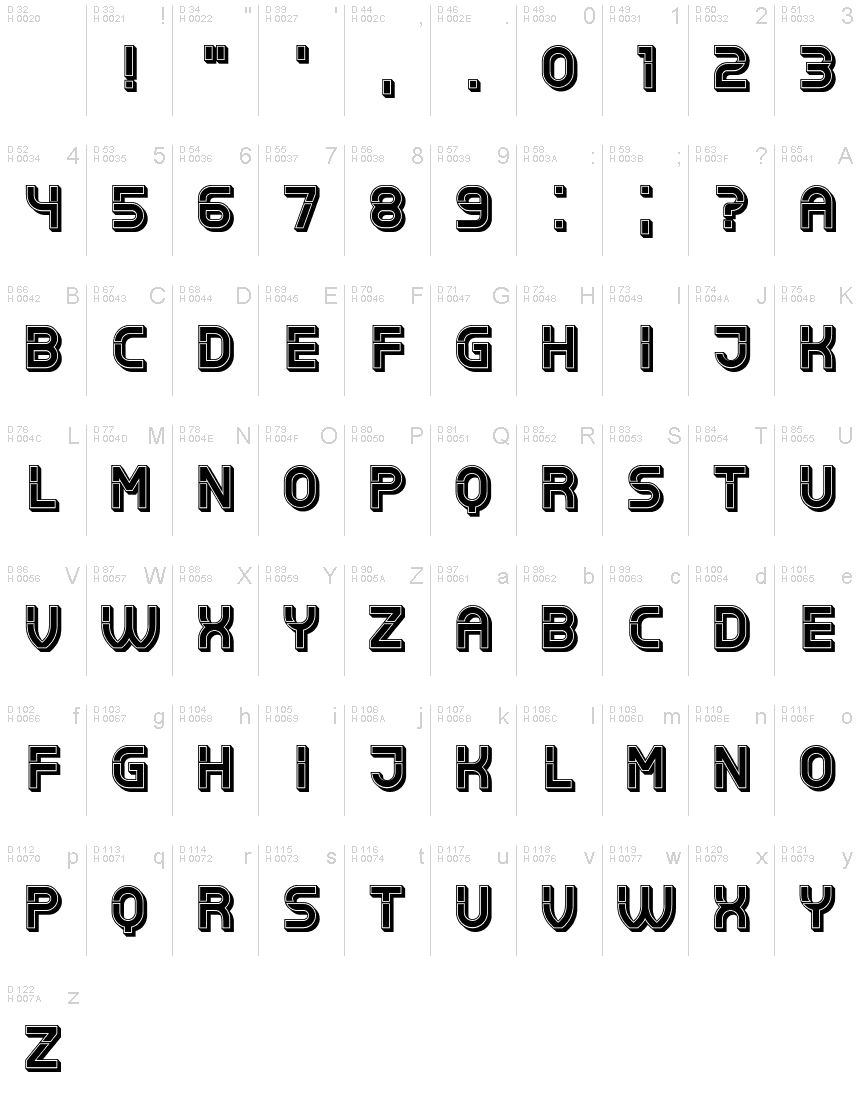
Hantaran Regular
Hantaran, a captivating display font by Vladimir Nikolic, adds a touch of elegance to any project.
With its embossed stencil style, this semi-bold font is perfect for eye-catching headlines and impactful branding materials. Its unique design makes it suitable for a range of projects, including luxury fashion magazines, sophisticated invitations, and high-end product packaging.
Hantaran effortlessly combines modernity with classic charm, making it an ideal choice for those seeking a stylish and memorable typographic experience.